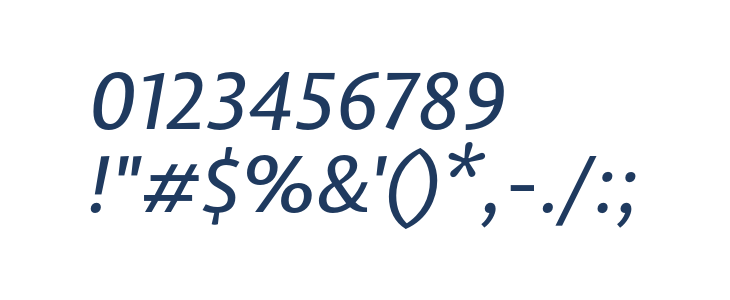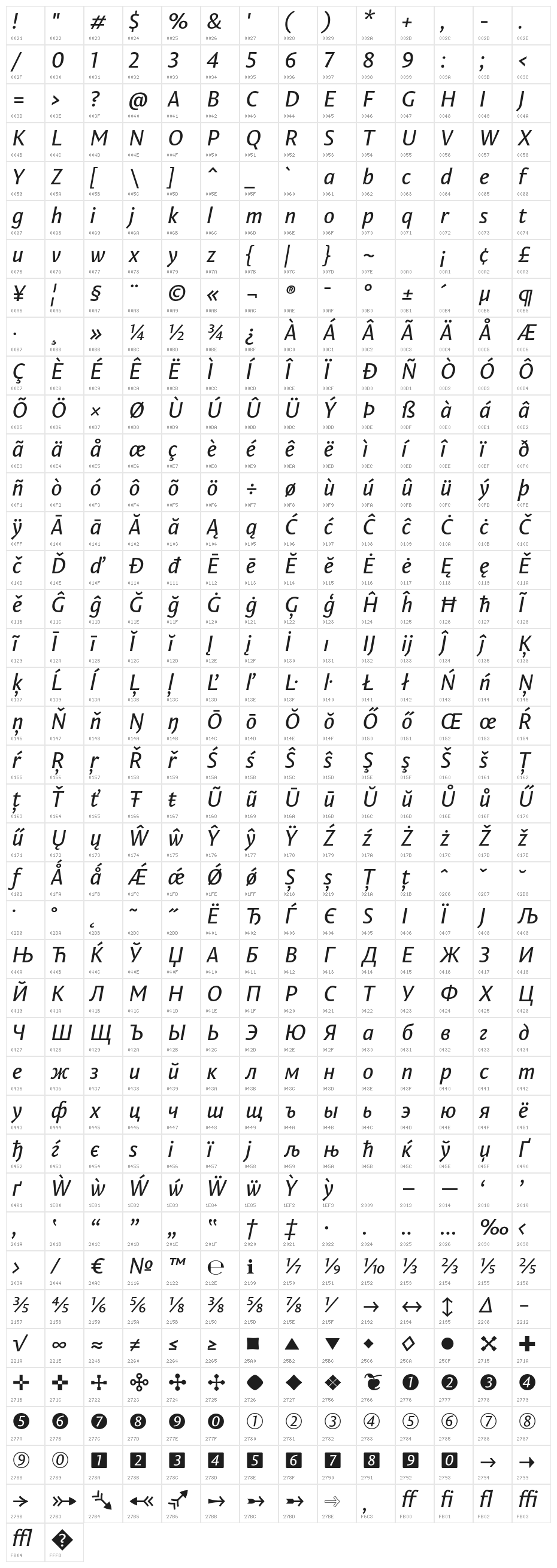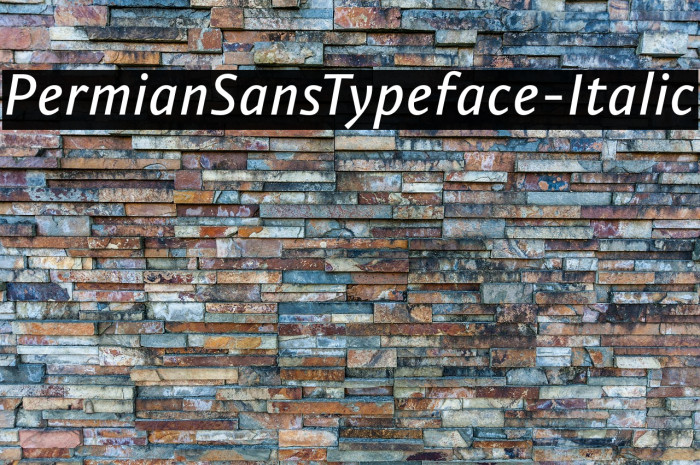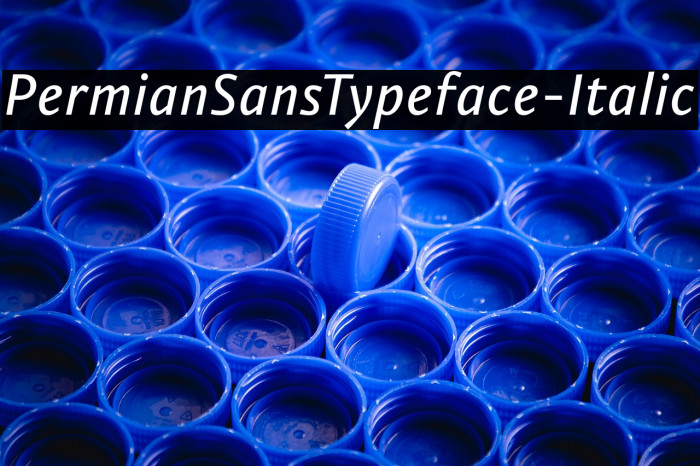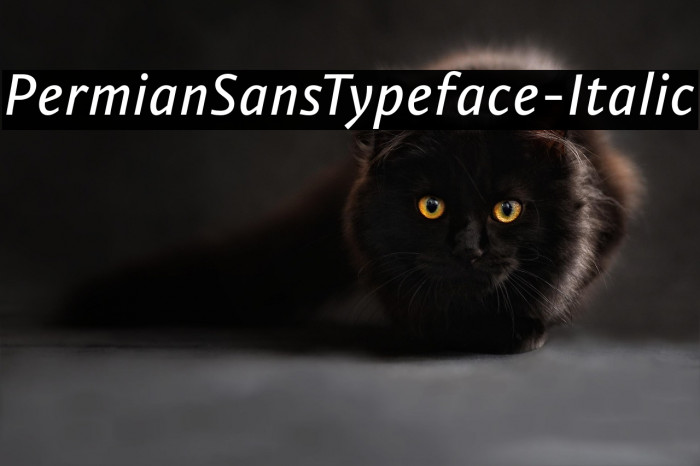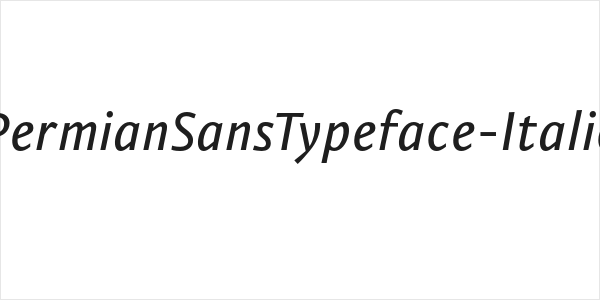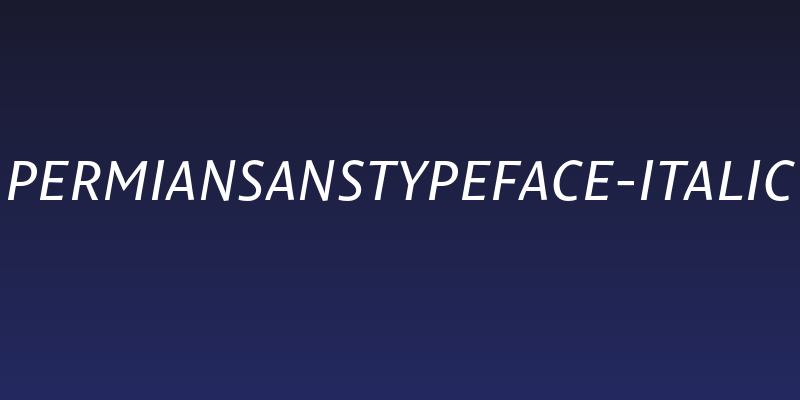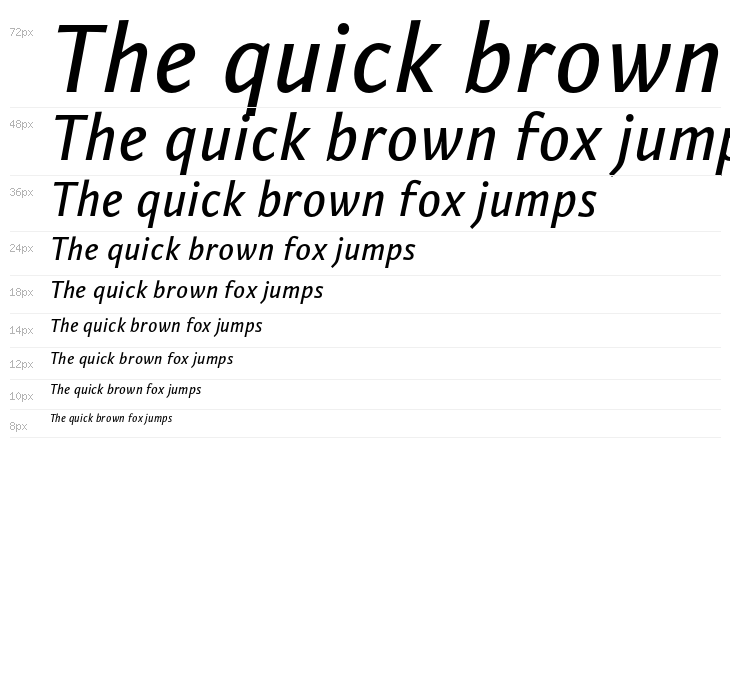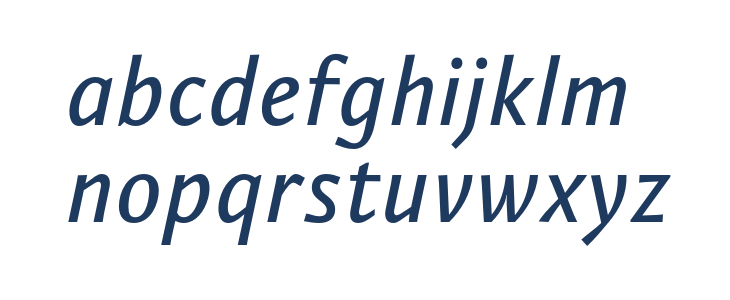
PermianSansTypeface-Italic Font
PermianSansTypeface-Italic Description
This typeface features a sleek and modern sans-serif design with a distinct italic style. The characters are slightly slanted, giving a dynamic and forward-moving appearance. The strokes are clean and consistent, with a medium contrast that adds to its readability. The uppercase and lowercase letters are well-proportioned, and the numerals are clear and legible. The special characters are designed to match the overall aesthetic, maintaining the font's cohesive look.
| Proposed Projects | Ideal for branding projects, modern web design, and editorial layouts where a contemporary and professional look is desired. |